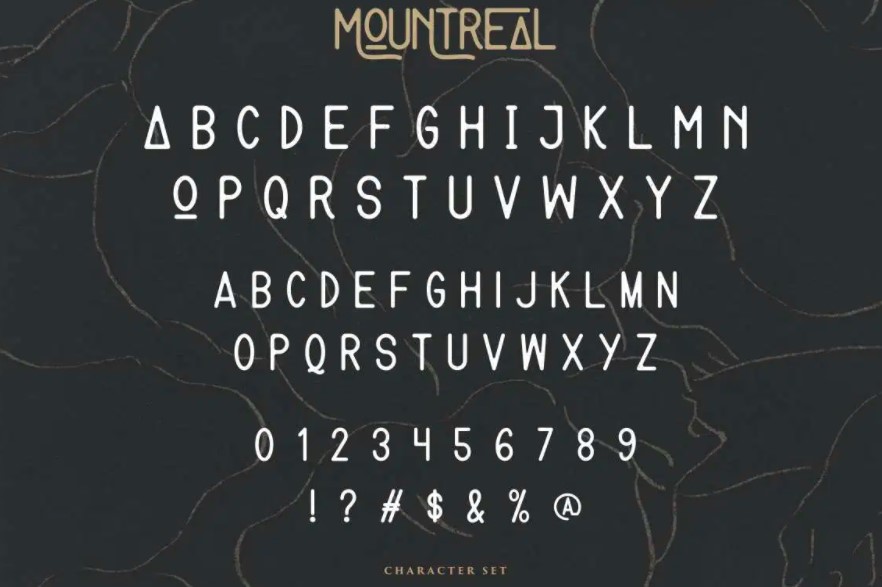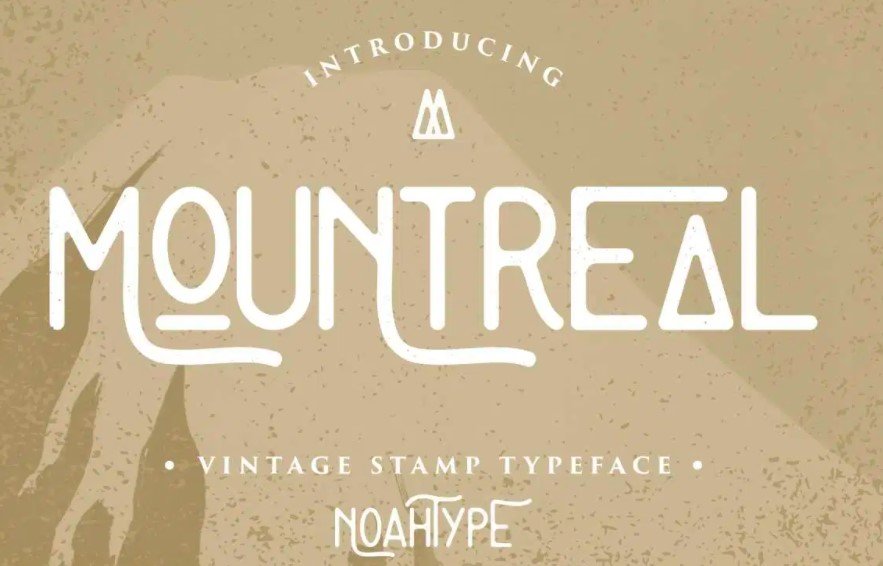
Hello, we have acquired another fantastic typeface for you: Mountreal Font. It is the ideal font for your current design projects, featuring unique and elegant characteristics that will meet all your needs.
It has modern, class and sustainable features which contain simple and clean proportional that will make any kind of designs more unique and elegant.
As you can view in the image above that the font has a curly texture which is best to work in logos, banners, and minimalist designs. It is good for pairing as well that works great with the combination of the bison font.